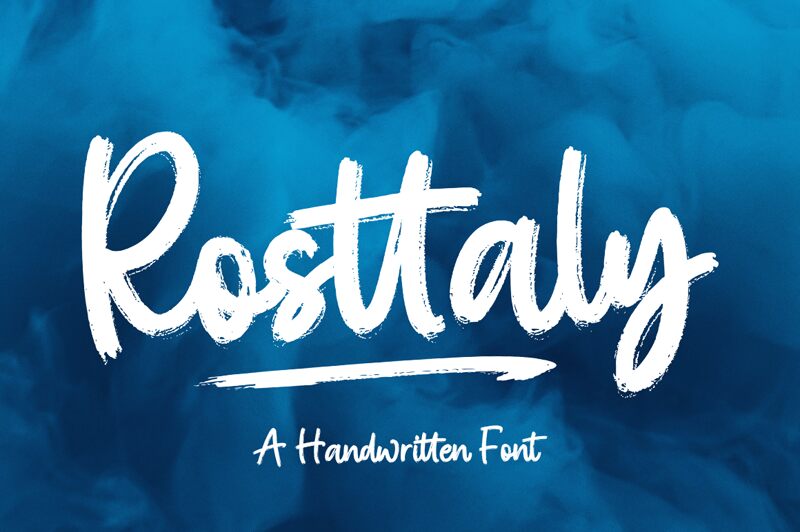
Rosttaly Underline font, part of the Rosttaly family by Rastype, captivates with its striking brush style and dynamic swashes. This free font exudes creativity and allows designers to craft bold, expressive statements. The unique, hand-painted appearance is ideal for projects aiming to evoke emotion and individuality.
With visually strong strokes, this font stands out in headlines, logos, and social media graphics. Perfect for artistic branding or crafting an eye-catching invitation, Rosttaly Underline adds a distinctive flair to any design project.